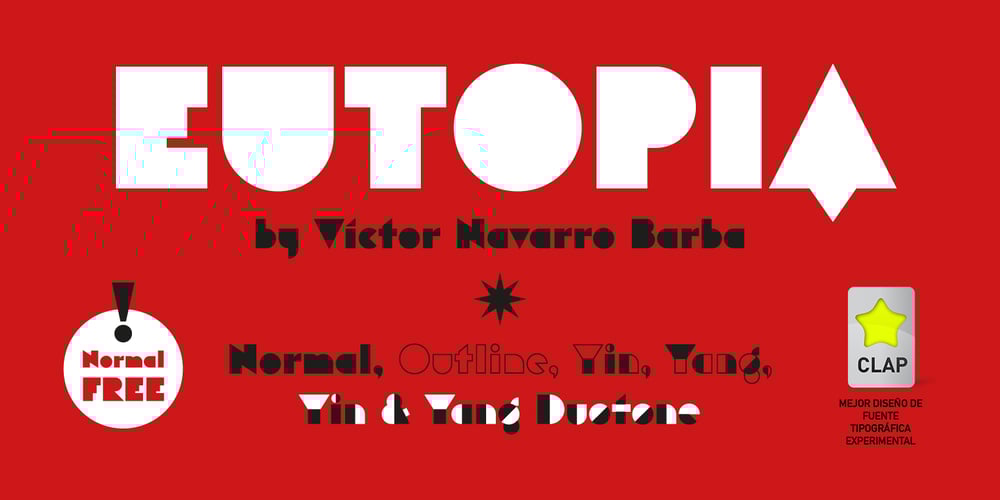
Eutopia Font Family was designed by Victor Navarro Barba and published by Tipofil. Eutopia contains 7 styles and family package options. I was inspired by the letters of the mythical “Ideales” tobacco package, designed in 1936 in Barcelona by Carlos Vives, director of the designers studio of the Rieusset graphical industry. We have also studied other geometrical models from the 1920s, to be highlighted among them the alphabet drawn by Cornelis André Vlaanderen at Amsterdam in 1928, which would have been very probably the inspiration for the famous tobacco package. Eutopia has been born with the aim to be useful for the current graphic communications. For that purpose almost 400 glyphs have been designed and more than 2200 kerning pairs have been defined. The multiple diacritic signs have been prepared to allow a multilingual use in most of the languages based on Latin alphabet. The OpenType features have been used to get alternate characters of “A” and “g”, and also ligatures, lowercase numbers and other typographic refinements.